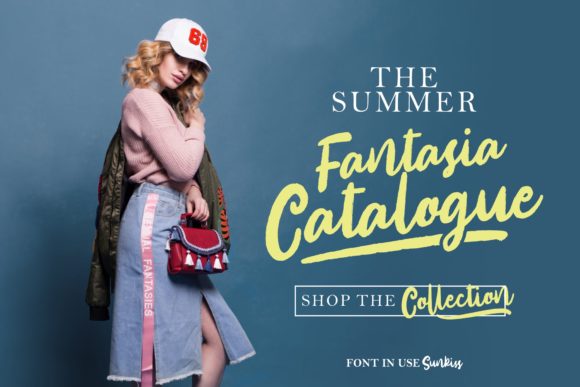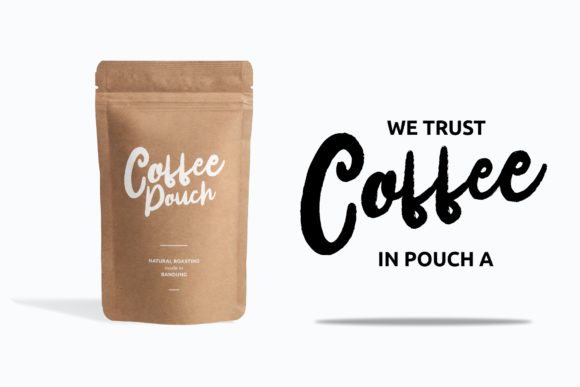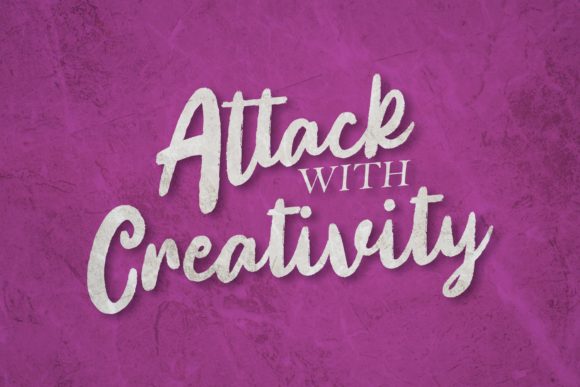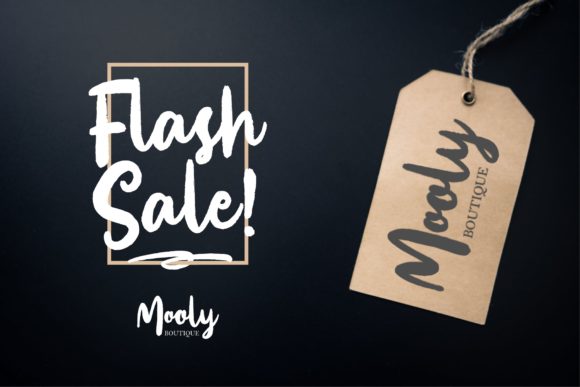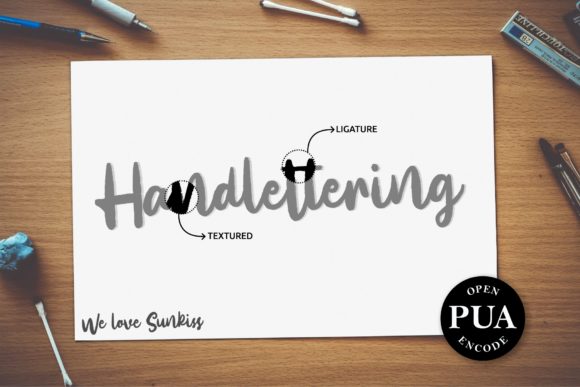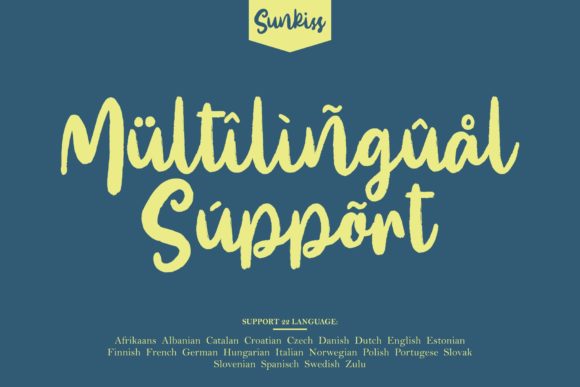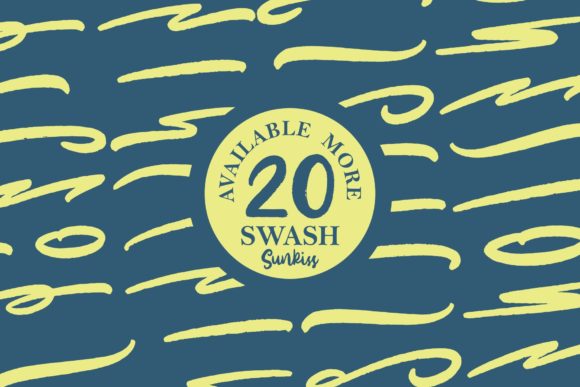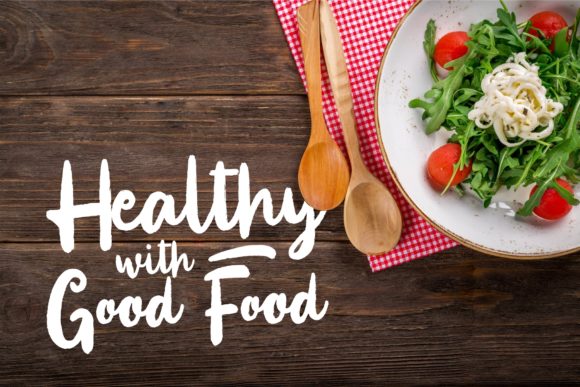
Sunkiss Script Font
About Sunkiss Script Font
The Sunkiss is a brush typeface with an unique style. Its striking look is perfect for logos, labels, posters, quotes, and much more!